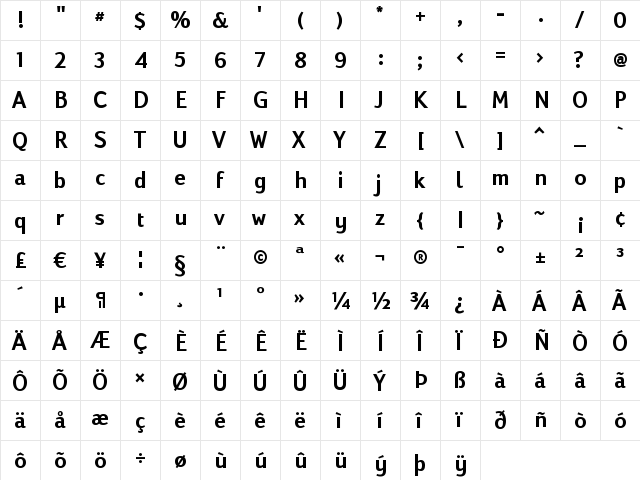
Fargo Bd DaMa Regular
| Foundry | Dalton Maag Ltd. |
| Designer | Dalton Maag Ltd. |
Design Context for Fargo Bd DaMa Typeface
Fargo Bd DaMa takes a measured approach to typography — its balanced proportions and neutral character make it a reliable workhorse for both digital and print work. The heavy weight commands attention and anchors typographic hierarchies.